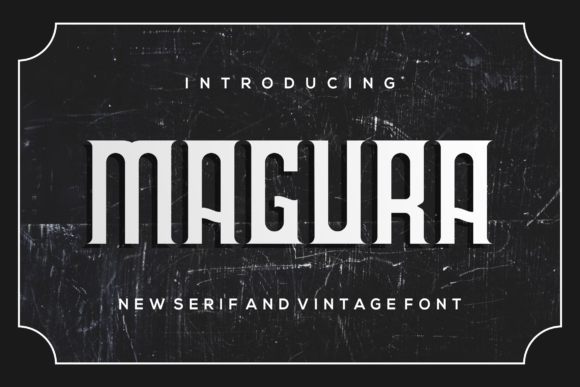
**Indulge in the Enchanting Embrace of Magura: A Serif Masterpiece for Timeless Typography**
In the realm of digital artistry, where aesthetics reign supreme, the choice of fonts holds immense power to captivate and enchant. Enter Magura, a captivating serif typeface that beckons you to elevate your creative endeavors to new heights.
Crafted with meticulous precision by the visionary artist, kalingga.albert, Magura embodies the very essence of versatility, exuding an aura of playfulness and retro charm. Its timeless design seamlessly complements a myriad of artistic expressions, from heartfelt greeting cards to bold and attention-grabbing headlines.
With Magura as your font of choice, you embark on a journey of limitless creativity. Its fluid strokes and elegant curves dance across your screen, inviting you to weave captivating narratives and create visual masterpieces that transcend the ordinary. Let your imagination soar with Magura, where the possibilities are as boundless as your artistic vision.
**Unveil the Allure of Magura:**
* **A Symphony of Styles:** Magura's versatile nature allows it to effortlessly adapt to a diverse range of design aesthetics, from classic and sophisticated to modern and whimsical. Its adaptability knows no bounds, making it the perfect choice for designers seeking a font that can effortlessly elevate any project.
* **A Master of Typography Art:** Magura's true calling lies in its ability to transform ordinary text into captivating works of typographic art. Its unique character and distinctive charm add a touch of magic to every word, making it the ideal choice for creating eye-catching headlines, alluring social media posts, and unforgettable marketing materials.
* **A Timeless Treasure:** Magura's timeless design transcends fleeting trends and endures as a font that will continue to inspire and captivate for generations to come. Its enduring appeal ensures that your creations will stand the test of time, leaving a lasting impression on your audience.
**Embrace the Magura Experience:**
Step into the enchanting world of Magura, where your creativity takes center stage. Experience the joy of crafting captivating designs that resonate with your audience on a profound level. From elegant invitations to dynamic website banners, Magura empowers you to create visuals that leave a lasting legacy.
Let Magura ignite your passion for design and transport you to a realm where your artistic vision knows no bounds. Discover the magic of Magura today and unlock the potential of your creativity.